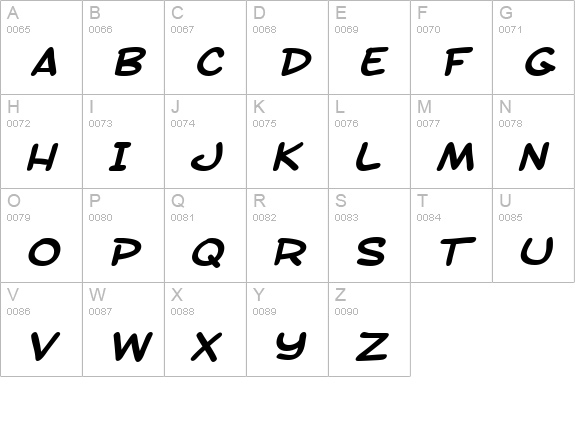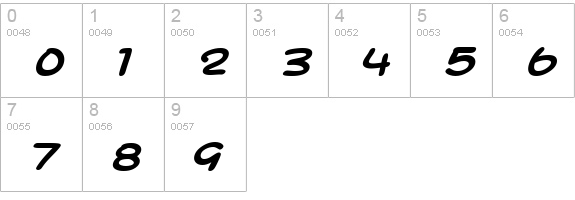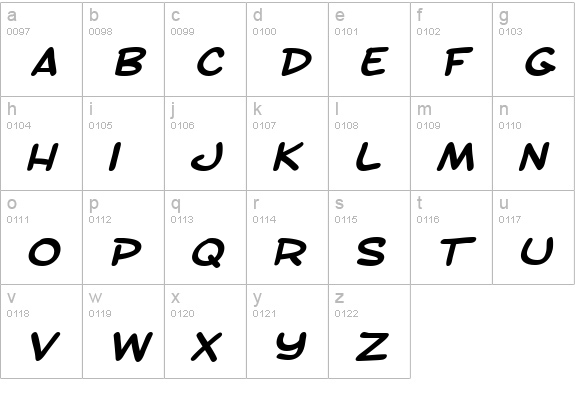
SF Toontime Extended Bold Italic Font Details
SF Toontime Extended Bold Italic is a strong, high-contrast, extended-width, italic variant in the SF typeface family \xE2\x80\x94 well suited to headlines, attention-grabbing titles, and strong calls-to-action.
SF Toontime Extended Bold Italic is a playful and vibrant font that brings a touch of whimsy and charm to any design project. This font is perfect for those looking to add a fun and animated element to their work, whether it be in a children's book, a poster, or a logo. The bold and italic combination of SF Toontime Extended Bold Italic adds emphasis and dynamism to each letter, making them pop off the page and capture attention. The extended letterforms give this font a unique and distinctive look, setting it apart from other fonts in its genre. With its free-spirited and lively nature, SF Toontime Extended Bold Italic is the ideal choice for projects that aim to evoke a sense of joy and playfulness. Whether you're designing a birthday invitation, creating a cartoon character, or crafting a whimsical website, this font will bring your ideas to life with its cheerful and animated appearance. The best part is that SF Toontime Extended Bold Italic is freely available to download at FontsMarket.com. This means that you can easily access and use this font in your design projects without any additional cost. Its availability at FontsMarket.com ensures a hassle-free and convenient process, allowing you to unleash your creativity without limitations. So, if you're looking to add a touch of fun and excitement to your designs, look no further than SF Toontime Extended Bold Italic. Download it for free at FontsMarket.com and let your imagination run wild with this playful and vibrant font.